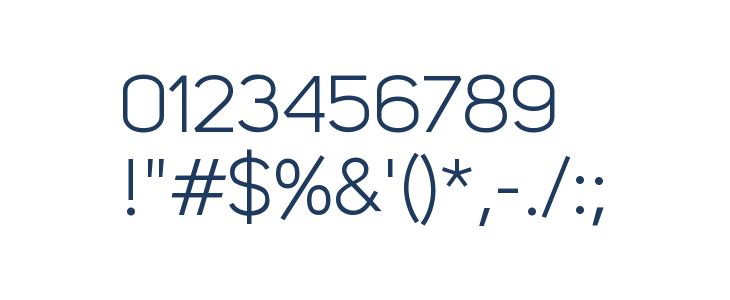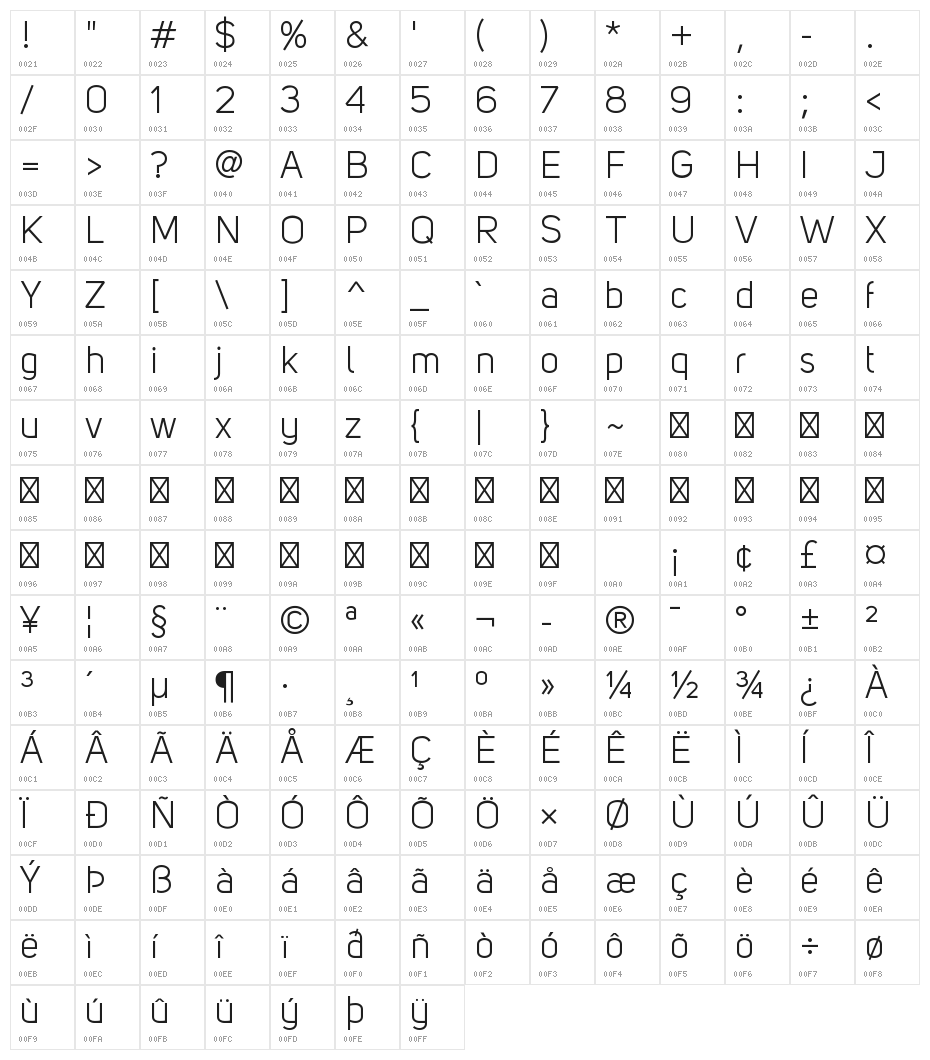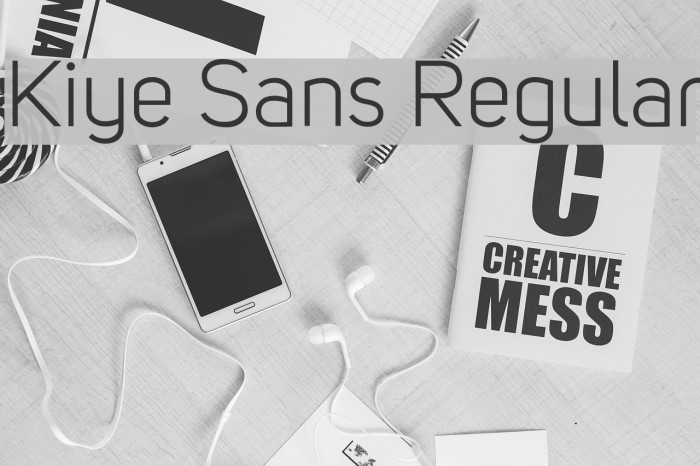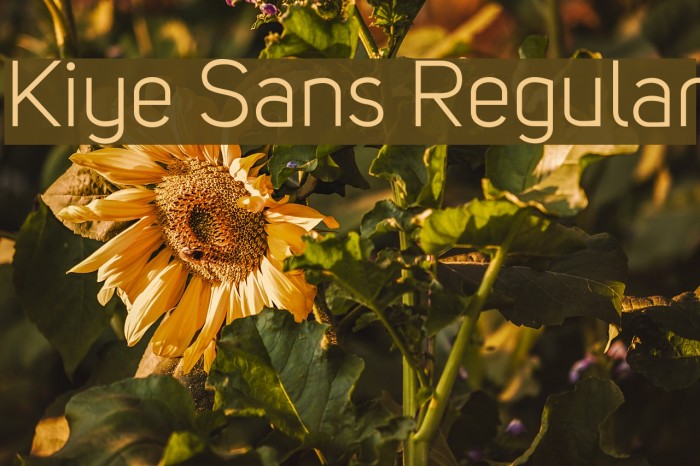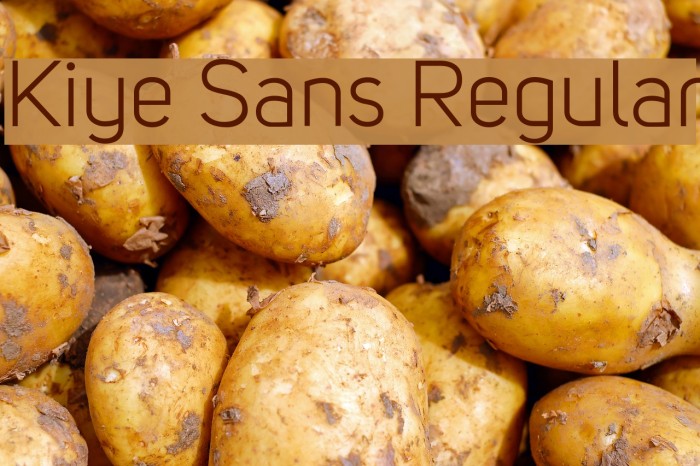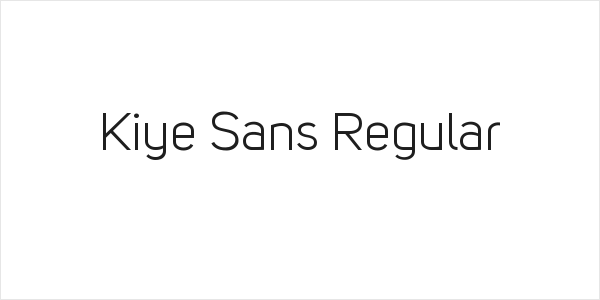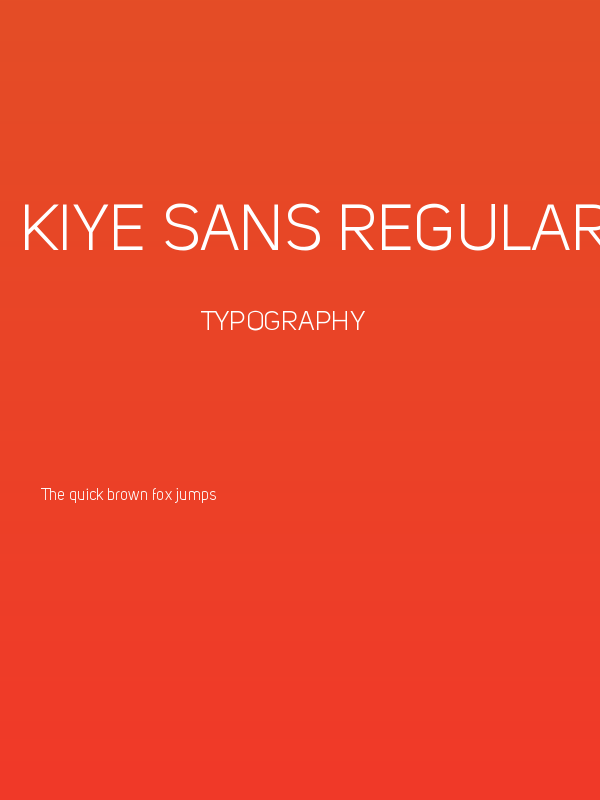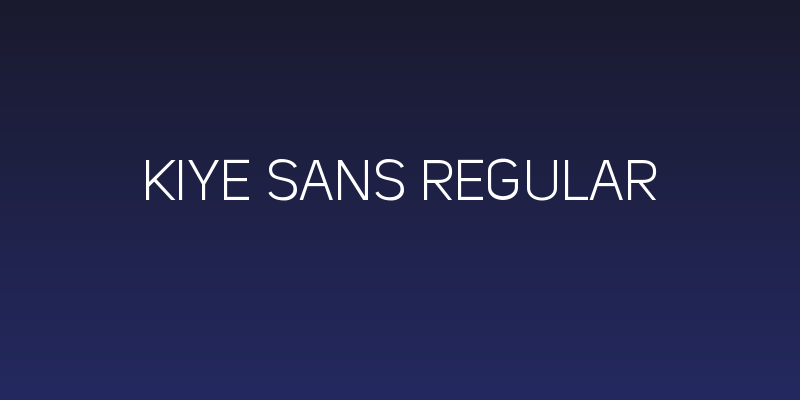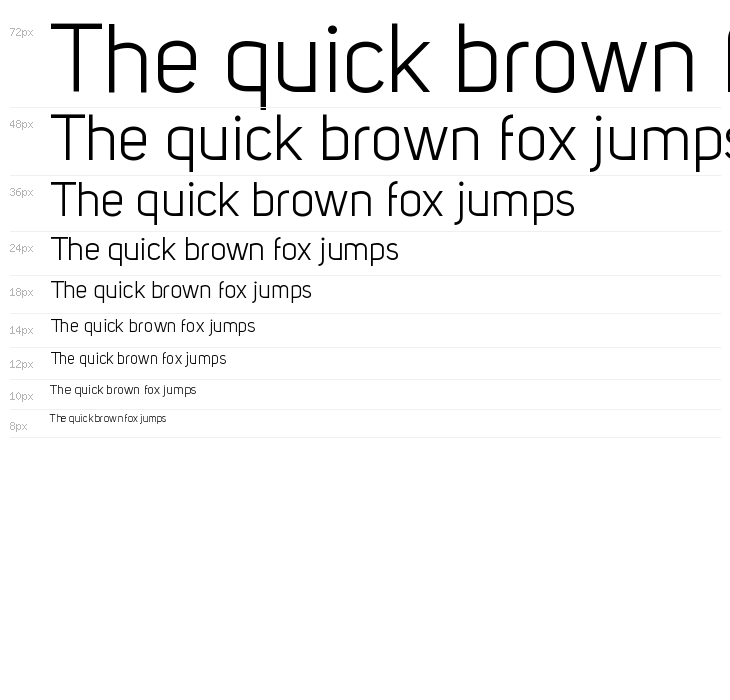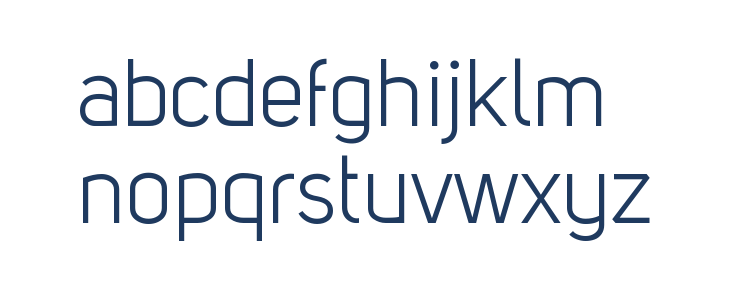
Kiye Sans Regular Font
Kiye Sans Regular Description
This font features a clean and modern sans-serif design with a geometric structure. The characters are evenly spaced, providing a balanced and harmonious appearance. The uppercase letters are bold and assertive, while the lowercase letters maintain a consistent flow with rounded edges. The numerals are clear and legible, making them suitable for various applications. The special characters are well-integrated, maintaining the overall aesthetic of the font. Its simplicity and clarity make it versatile for both digital and print media.